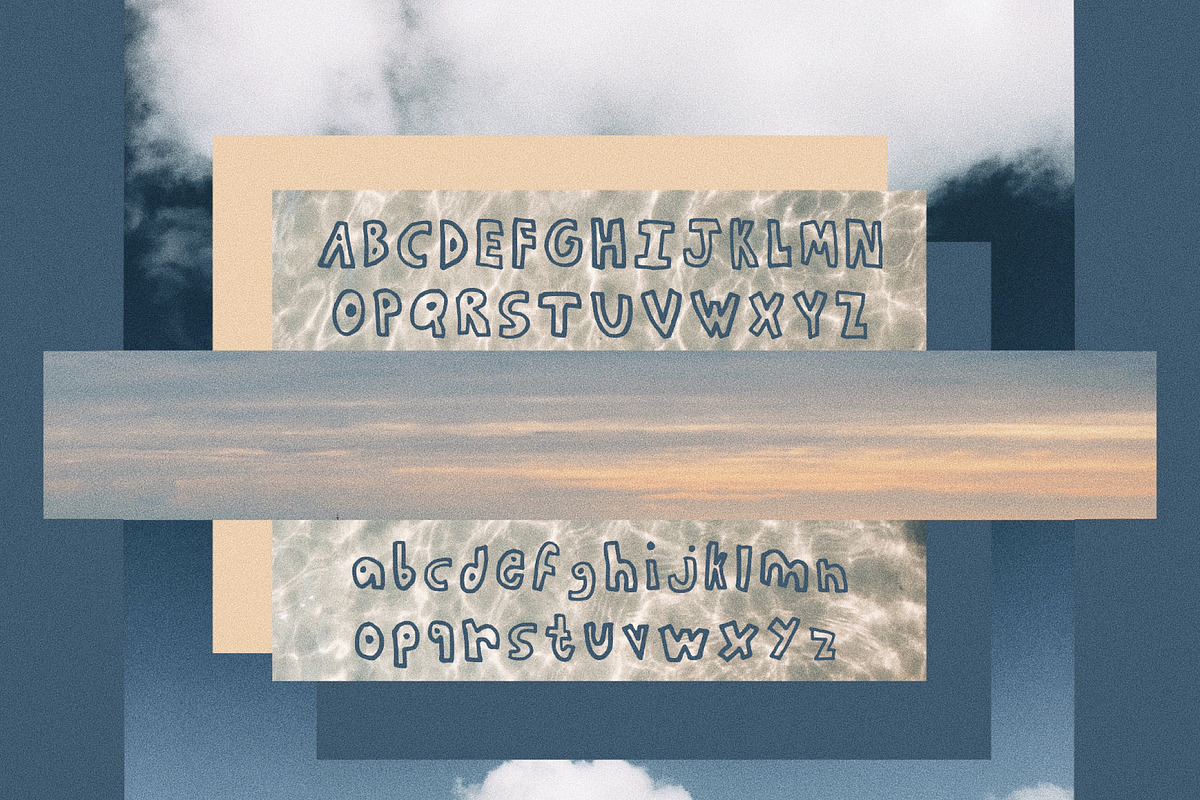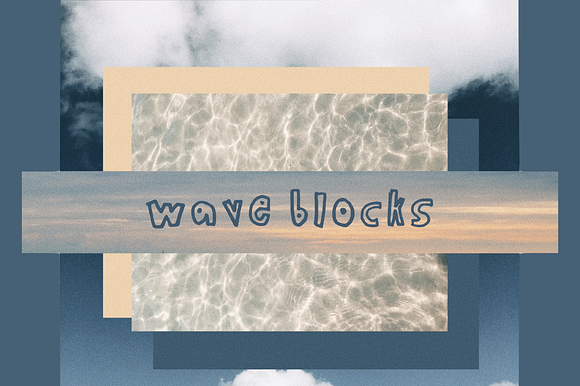
WAVE BLOCKS - a handwritten font
Wave Blocks is a fun, hand-written block lettered font that can give your projects a ton of charm. ✨
WAVE BLOCKS - a handwritten font by kait alanis fits naturally into Branding, posters, packaging, typography.